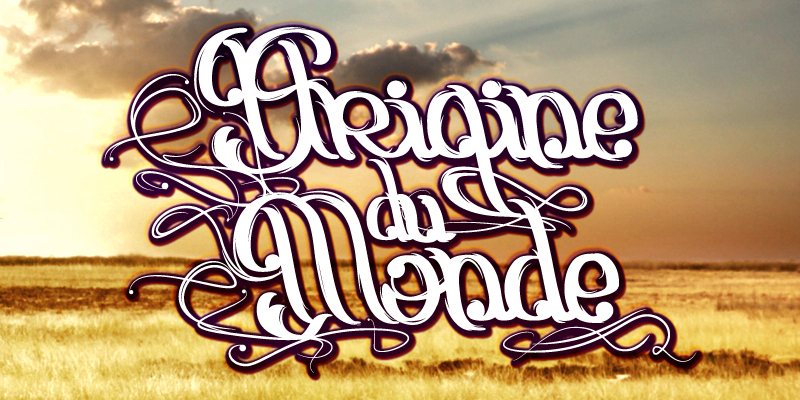
Origine du Monde
"Origine du Monde" is a captivating calligraphic font that exudes a sense of refined elegance. Designed by Qkila, this intricate typeface showcases a harmonious blend of graceful curves and ornate flourishes, creating a visually striking and expressive aesthetic.
Its distinctive style, with its flowing lines and delicate embellishments, lends itself beautifully to a variety of design contexts, from high-end editorial layouts to bespoke stationery and wedding invitations.
The font's versatility allows for seamless integration into projects that demand a touch of sophistication and artistry, making it a valuable asset for designers seeking to craft visually compelling and memorable designs.